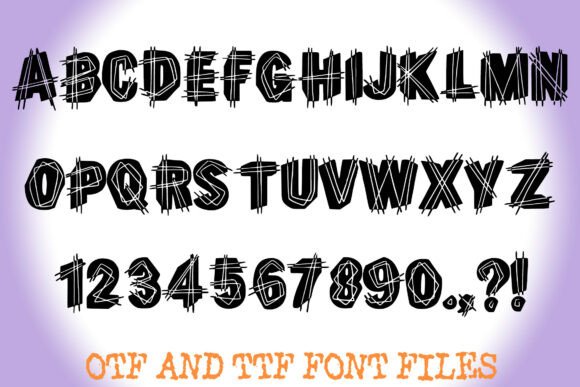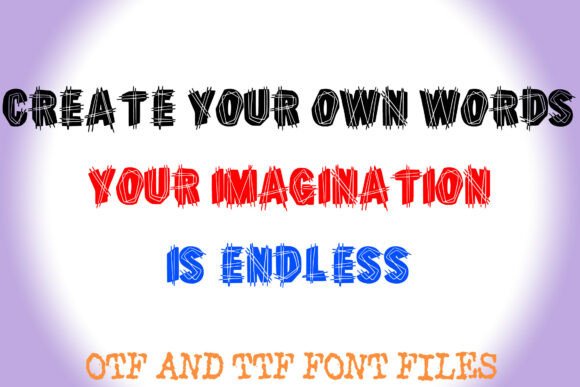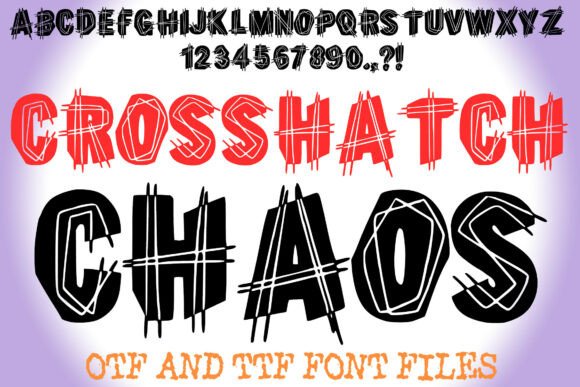
Unleash Your Creativity with Crosshatch Chaos Font
Are you tired of using the same old fonts for your designs? Do you want to add a touch of raw energy and artistic attitude to your projects? Look no further than Crosshatch Chaos, a bold, hand-drawn display font that’s sure to make a statement. With its overlapping sketch lines and distinct scribbled texture, this typeface is perfect for designers and crafters who want to add a bit of chaos to their work.
The Perfect Balance of Chaos and Control
Crosshatch Chaos is all about balance. On one hand, it’s a font that’s unapologetically chaotic, with a lively, grunge-inspired style that adds movement and depth to your text. On the other hand, it’s a font that’s carefully crafted to be highly legible and easy to read, making it perfect for use in a wide range of projects. Whether you’re designing a punk poster, an edgy brand identity, or a statement tee, Crosshatch Chaos is the perfect choice.
So, what can you use Crosshatch Chaos for? The possibilities are endless! Here are just a few ideas to get you started:
- Punk posters: Add a touch of rebellion to your posters with Crosshatch Chaos. Its bold, eye-catching style is perfect for promoting concerts, festivals, and other events.
- Edgy branding: Give your brand a bold, artistic voice with Crosshatch Chaos. It’s perfect for companies that want to stand out from the crowd and make a statement.
- Statement tees: Create bold, eye-catching designs for t-shirts and other apparel with Crosshatch Chaos. Its lively style is sure to turn heads.
- Album covers: Add a touch of grunge-inspired style to your music album covers with Crosshatch Chaos. Its bold, chaotic style is perfect for rock, punk, and indie music.
- Social media graphics: Use Crosshatch Chaos to create bold, eye-catching graphics for social media. Its lively style is sure to grab attention and get your message across.
- DIY crafts: Add a touch of personality to your DIY crafts with Crosshatch Chaos. Its bold, artistic style is perfect for handmade cards, gift tags, and other paper crafts.
- All-uppercase font: Includes letters, numbers, and basic punctuation (. , ? !)
Why Choose Crosshatch Chaos?
So, why choose Crosshatch Chaos over other fonts? Here are just a few reasons:
- Unique style: Crosshatch Chaos has a unique, hand-drawn style that’s sure to make your designs stand out.
- Highly legible: Despite its chaotic style, Crosshatch Chaos is highly legible and easy to read.
- Versatile: Crosshatch Chaos can be used in a wide range of projects, from punk posters to DIY crafts.